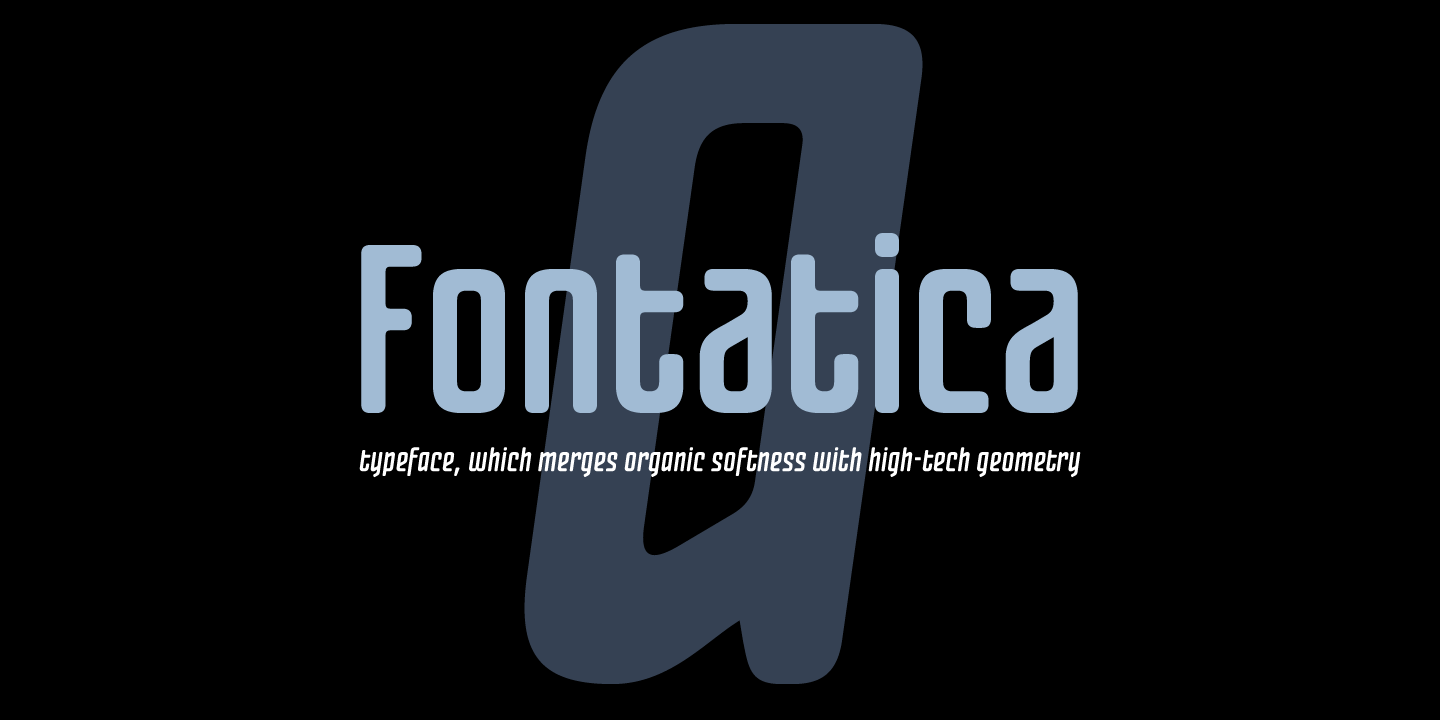
Fontatica 4F Font is ideal for various design applications including modern typography studios, contemporary graphic design portfolios, avant-garde art installations, experimental publishing projects, cutting-edge advertising campaigns, progressive web design interfaces, innovative brand identities, and forward-thinking creative agencies that require typographic innovation and contemporary sophistication.
What makes Fontatica 4F Font truly exciting is its revolutionary approach to contemporary typography that pushes the boundaries of traditional letterform design while maintaining exceptional functionality and visual clarity across all modern communication platforms. This groundbreaking typeface features innovative geometric construction with subtle contemporary refinements that reflect the evolution of digital design and the increasing sophistication of modern typographic expression. The font's progressive character embodies the spirit of typographic innovation, making it perfect for brands that want to communicate design leadership, creative excellence, and forward-thinking vision. Its contemporary appearance creates immediate associations with cutting-edge design and typographic mastery.
The Fontatica 4F Font family includes multiple weights and contemporary variations designed to enhance modern communication. The collection features Thin, Light, Regular, Medium, SemiBold, Bold, and Black weights, each maintaining the font's characteristic innovative appeal while offering different levels of typographic presence. The family also includes condensed and extended variants for versatile layout applications, comprehensive character sets with modern symbols, and stylistic alternates that add contemporary personality and design flexibility. Additional features include contextual ligatures and progressive sets that create sophisticated, modern text arrangements perfect for cutting-edge design applications.
Design and typography professionals consistently choose Fontatica 4F Font Free Download for projects requiring authentic contemporary character and typographic credibility. The font's innovative nature makes it particularly effective for design studios, creative agencies, and progressive brands targeting audiences who appreciate typographic excellence and modern design aesthetics. Its exceptional performance across digital and print platforms ensures effective communication while maintaining the distinctive contemporary character that conveys design authority and creative sophistication.
The advanced OpenType capabilities of Fontatica 4F Font include extensive stylistic alternates, contextual substitutions, and comprehensive character support that accommodates international design applications while preserving the font's authentic contemporary character. The technical precision ensures consistent modern appearance across different design platforms and creative applications.
For creative professionals seeking a typeface that embodies genuine typographic innovation and contemporary design excellence, Fontatica 4F Font offers unparalleled modern appeal and creative elegance. Its ability to convey design leadership while maintaining exceptional functionality makes it invaluable for design studios, creative agencies, and innovative brands. The font's distinctive contemporary character ensures memorable typographic impact across all applications, creating powerful visual identity systems that celebrate the evolution of modern typography and the endless possibilities of creative expression in contemporary design culture.